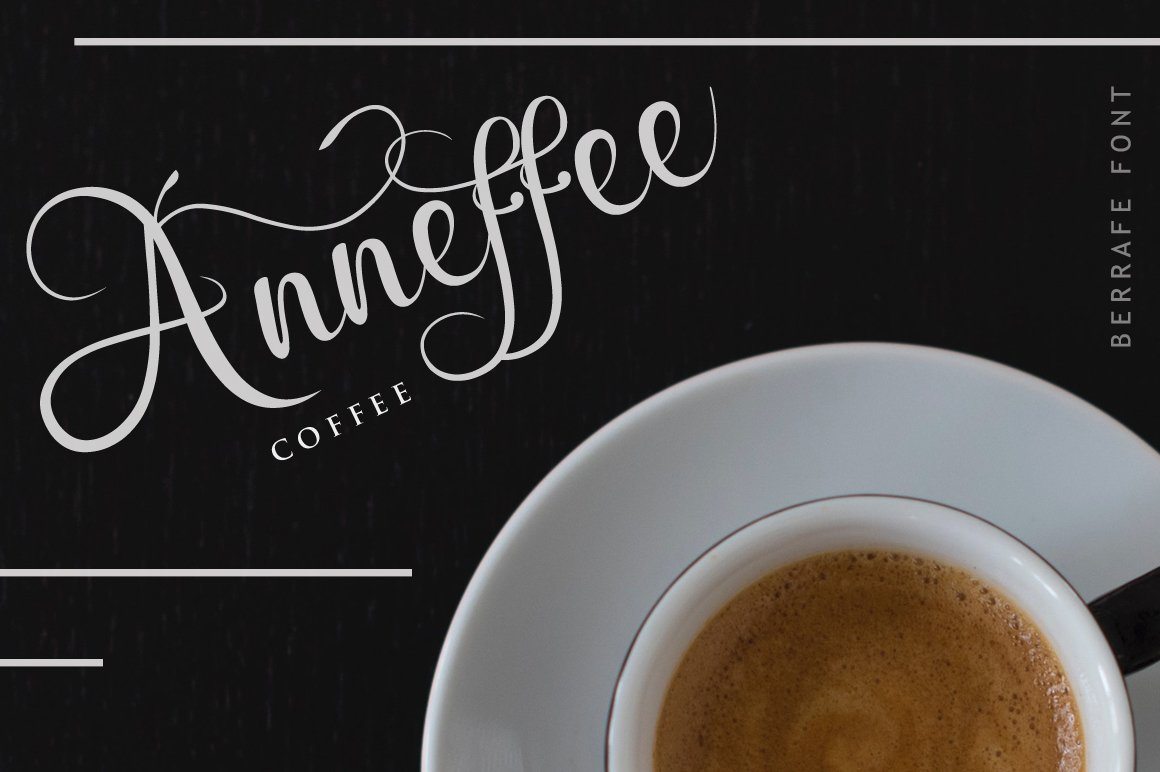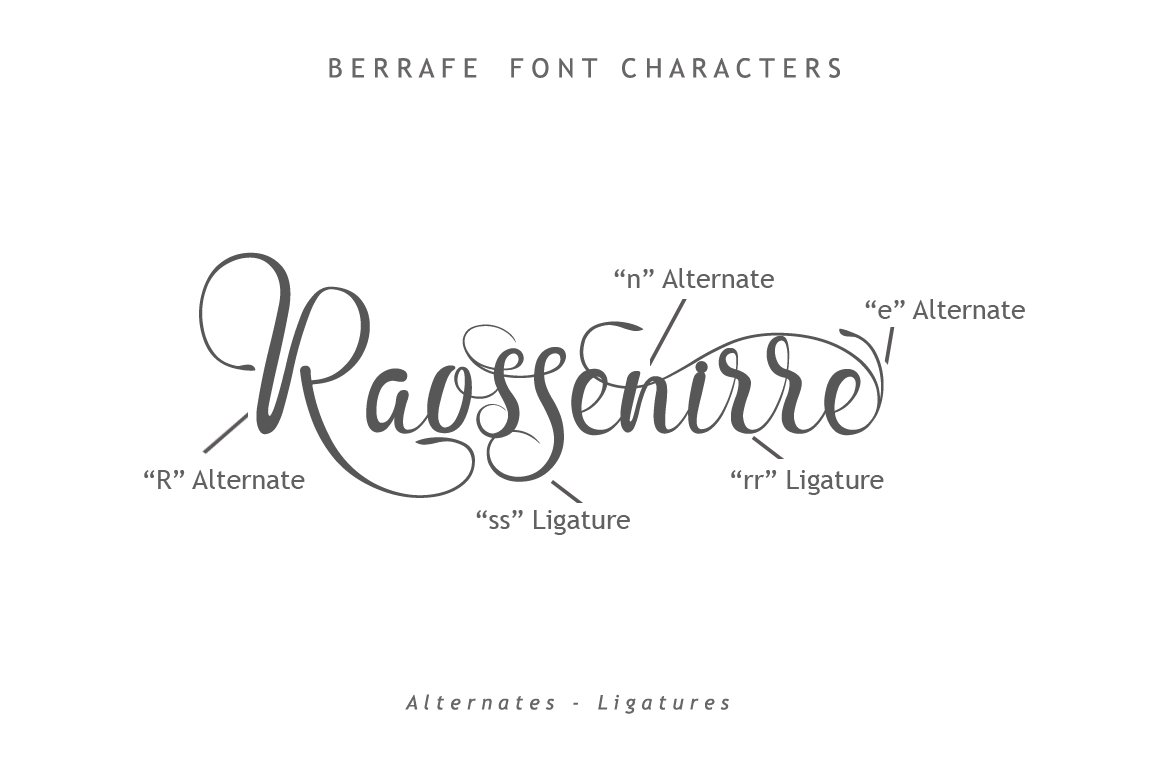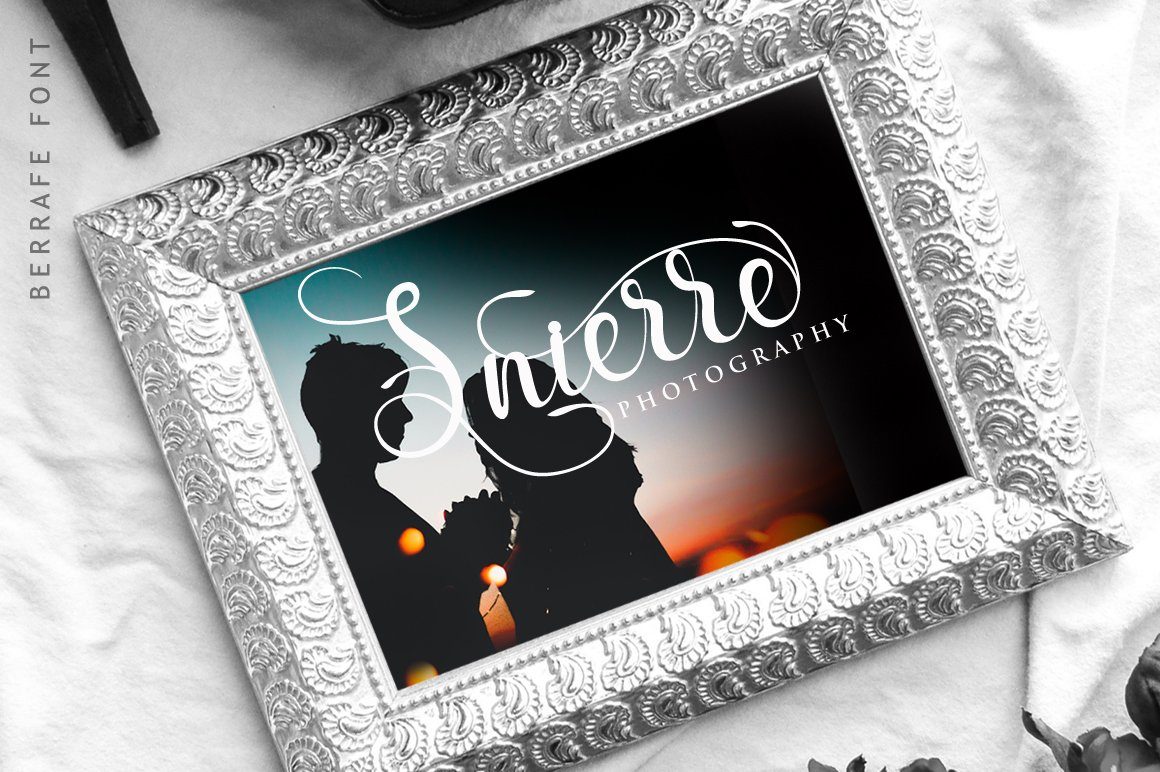
About Berrafe Font
Berrafe Font Berrafe is a beautiful modern calligraphy script font. Perfect for wedding invites, logos, branding, quotes, product packaging, headers, and more. Features : Available in single OTF and TTF files (Alternates also available in TTF separately ) Uppercase A-Z Lowercase a-z Numbers 0-9 Accents Punctuation Uppercase Alternates Lowercase Alternates PUA Encoded Multilingual support Support for Windows, Mac and Linux OS HOW TO ACCESS ALTERNATE CHARACTERS Install OTF File (.otf) , You need a program that supports OpenType features like Adobe Illustrator CS, Adobe Indesign & CorelDraw X6-X7, Microsoft Word 2010 or later to enable OpenType features (ligatures and alternates). or Install OTF File (.otf) , for the programs that do not support OpenType features you can use Character map application (windows) / Font Book application (Mac) or Babel map application (optional), choose the font and then copy-paste alternate characters from them to your project page (such as photoshop page etc). or Install TTF File (.ttf) , for the programs that do not support OpenType features you should install all TTF files , so you will have basic font and alternate fonts in your system.You can mix and match them to get the best typographic designs in almost all text processing program. If you have any questions regarding this product kindly leave your message through the contact form, comment field or contact us at  . Enjoy the font!! Thank you.. Don’t forget to visit our shop and check our products click here